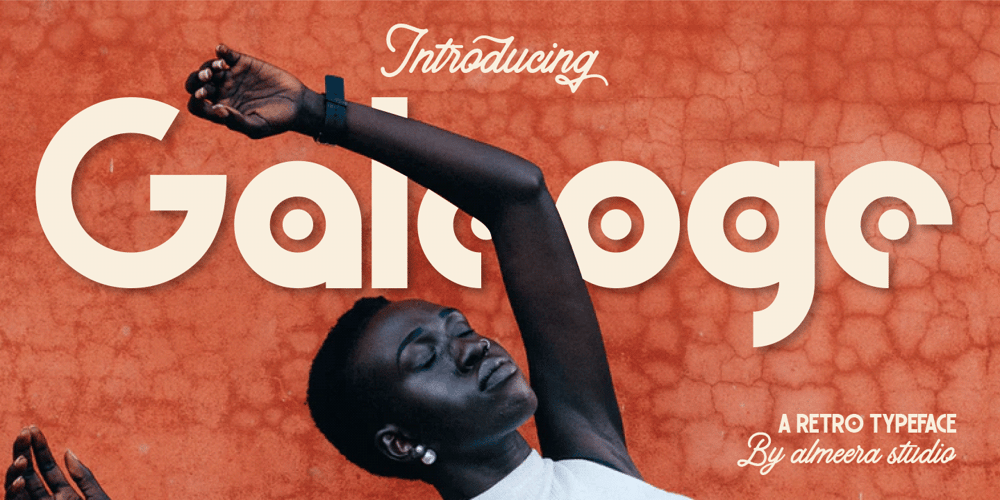
Galeoge Font Family was designed by Rinto Dwi Nugroho and published by Almeera Studio. Galeoge contains 1 styles and family package options. Introducing the new Galeoge !!! Galeoge is a modern and retro san serif typeface. This font is both modern and nostalgic and works great for logos, magazine, social media. Already matched up and ready to be used together for your next design! For those of you who are needing a touch of elegant, stylish, classy, vintage and modernity for your designs, this font was created for you!Perfect for editorial projects, Logo design, Cover album, Branding, product packaging, magazine headers, or simply as a stylish text overlay to any background image.No special software is required to type out the standard characters of the Typeface. To access the Opentype Ligatures, you will need software that supports Opentype features in fonts.Current Language Support : Danish, English, Finnish, French, German, German (Switzerland), Norwegian Bokmål, Norwegian Nynorsk, Portuguese, Spanish, Swedish, Swiss German.